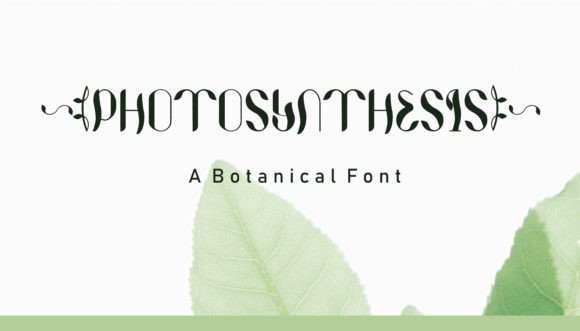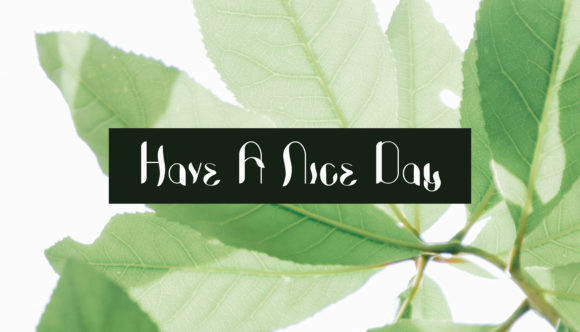
Photosynthesis Font
Photosynthesis embodies elegance, quirkiness and authenticity. This enchanting display font will turn any creative idea into a true standout.